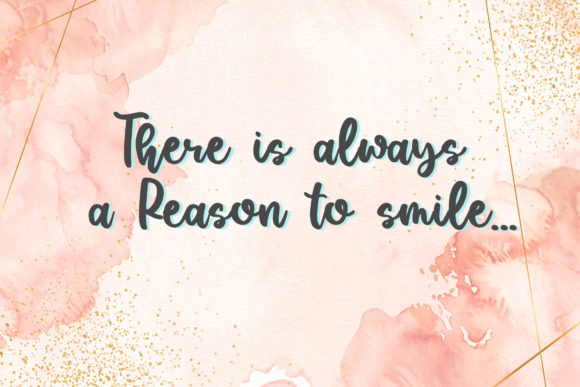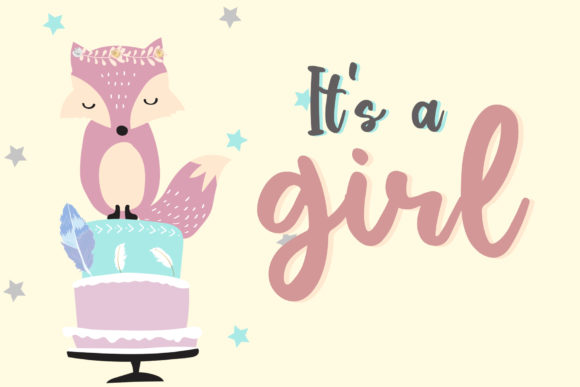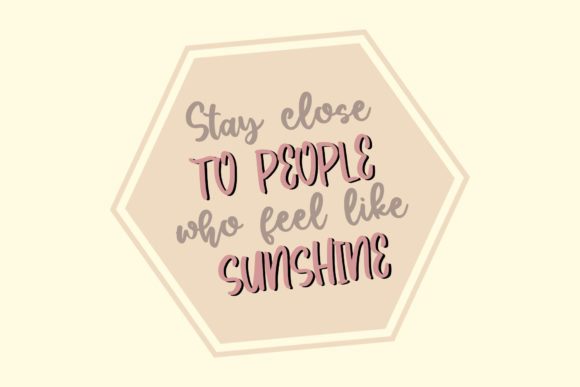
Introduction to Silky Smoke Font
Remember that moment when you stumble upon the perfect font, and it instantly elevates your entire design project? For designers, finding the right font can be the difference between a good design and a great one. And that’s exactly what happened when I discovered the Silky Smoke Font – a charming, handwritten font that has since become my go-to choice for any creative project.
With its casual, down-to-earth charm, Silky Smoke Font is the perfect addition to any design resource. Whether you’re working on a free download project or a high-quality design for a client, this font is sure to make your work stand out. Its versatility shines through, looking outstanding even on busy backgrounds or as a standalone headline.
What sets Silky Smoke Font apart is its high-quality, handcrafted design. The result is a font that feels both timeless and fresh, perfect for designers looking to add a touch of personality to their work. And the best part? You can download it for free, making it an invaluable resource for any design project.
Key Features of Silky Smoke Font
- High-quality design resource ideal for creative projects, including digital art and graphic design.
- Sophisticated, silky texture with a subtle smoke effect, adding a touch of elegance to any design.
- Transparent background, allowing for seamless integration with any design element or background.
- High-resolution design, suitable for use in large-scale creative projects, such as billboards or posters.
- Perfect for designers who want to add a touch of sophistication and whimsy to their work, making it a great addition to any design resource collection.
Honest Review: Silky Smoke Font
I recently stumbled upon the Silky Smoke Font, and I have to say it’s a great addition to my design resource collection. The font is available for free download, which is always a bonus. The high quality of the font makes it perfect for any creative project that requires a touch of elegance.
One of the things that stands out about the Silky Smoke Font is its unique style. The font has a transparent background, which makes it easy to combine with other design elements. This feature is particularly useful for designers who want to create a seamless and cohesive look.
- High-quality font with a unique style
- Perfect for creative projects that require elegance
- Transparent background for easy combination with other design elements
- The font may not be suitable for projects that require a bold or playful tone
- The transparent background may not be compatible with all design software
Overall, I’m impressed with the Silky Smoke Font. It’s a great addition to any designer’s collection, and it’s perfect for projects that require a touch of sophistication. If you’re looking for a high-quality font for your next creative project, I highly recommend giving the Silky Smoke Font a try.
Tips for Getting the Most Out of Silky Smoke Font
To get the most out of the Silky Smoke Font, try using it with a transparent background to create a subtle, layered look. Experiment with different font sizes and styles to add visual interest to your designs.
The Silky Smoke Font is perfect for creative projects that require a unique, high-quality font. Use it for branding, marketing materials, or any other design project where you want to add a touch of elegance and sophistication.
Yes, the Silky Smoke Font has a transparent background, making it easy to use in various design scenarios. This feature allows you to overlay the font on different backgrounds without any visual obstructions.